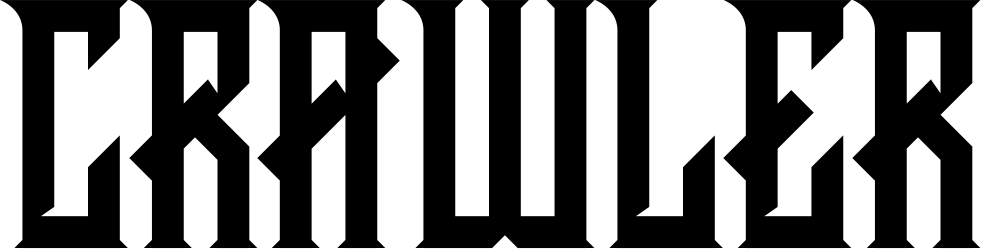
Crawler Font
Putting aside the fact that Crawler doesn’t include lowercase versions of letters, its pointy ends create a sharp outline and provide you with the kind of noticeable look you’ll need in lots of your projects.
Whether it’s a logo you’re in charge of designing or other business stuff all the way to entertainment graphics like games, posters, or social media, this gothic font can handle them all singlehandedly. See it yourself!
Hello, this is GRVS New font, CRAWLER.